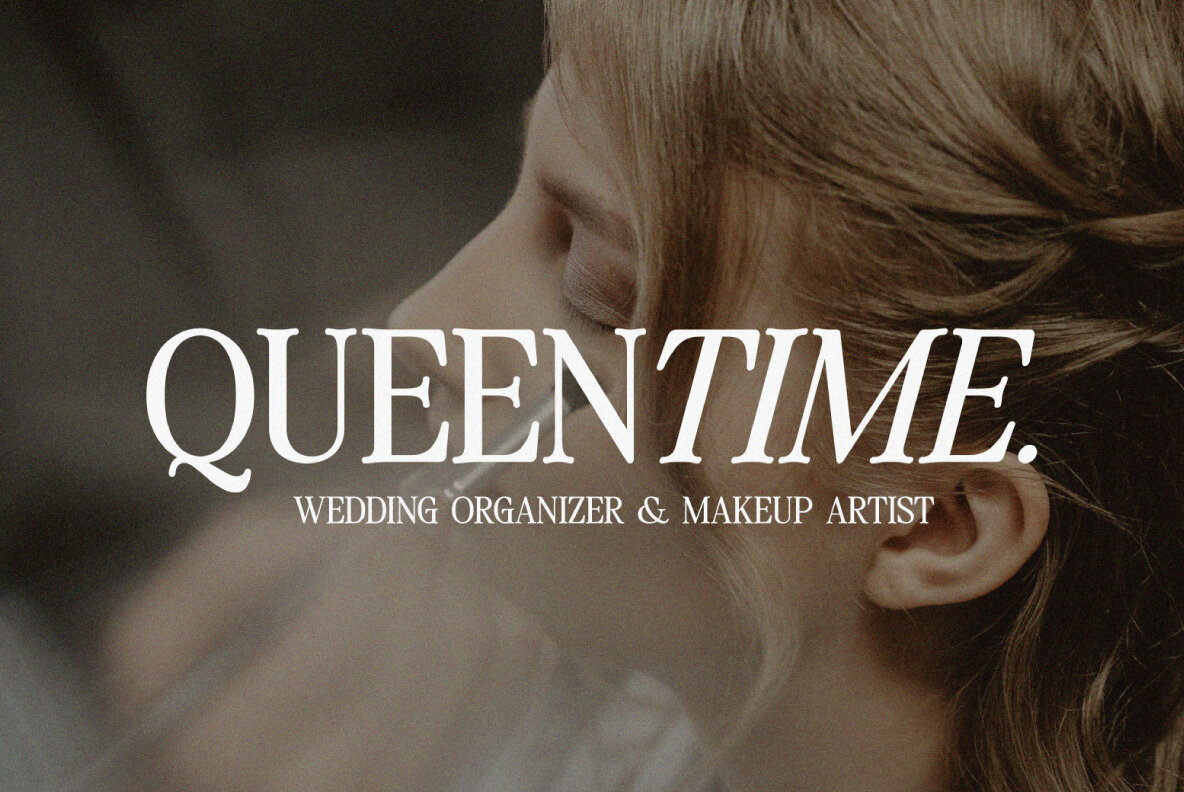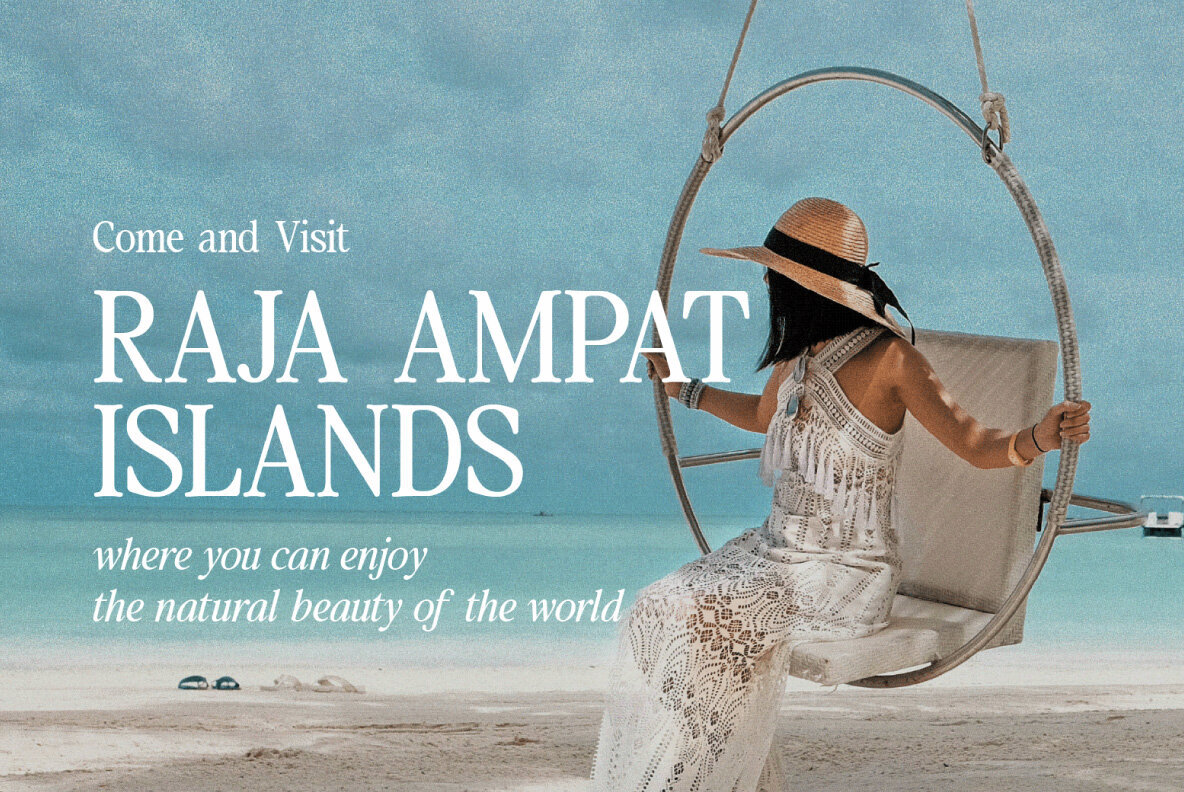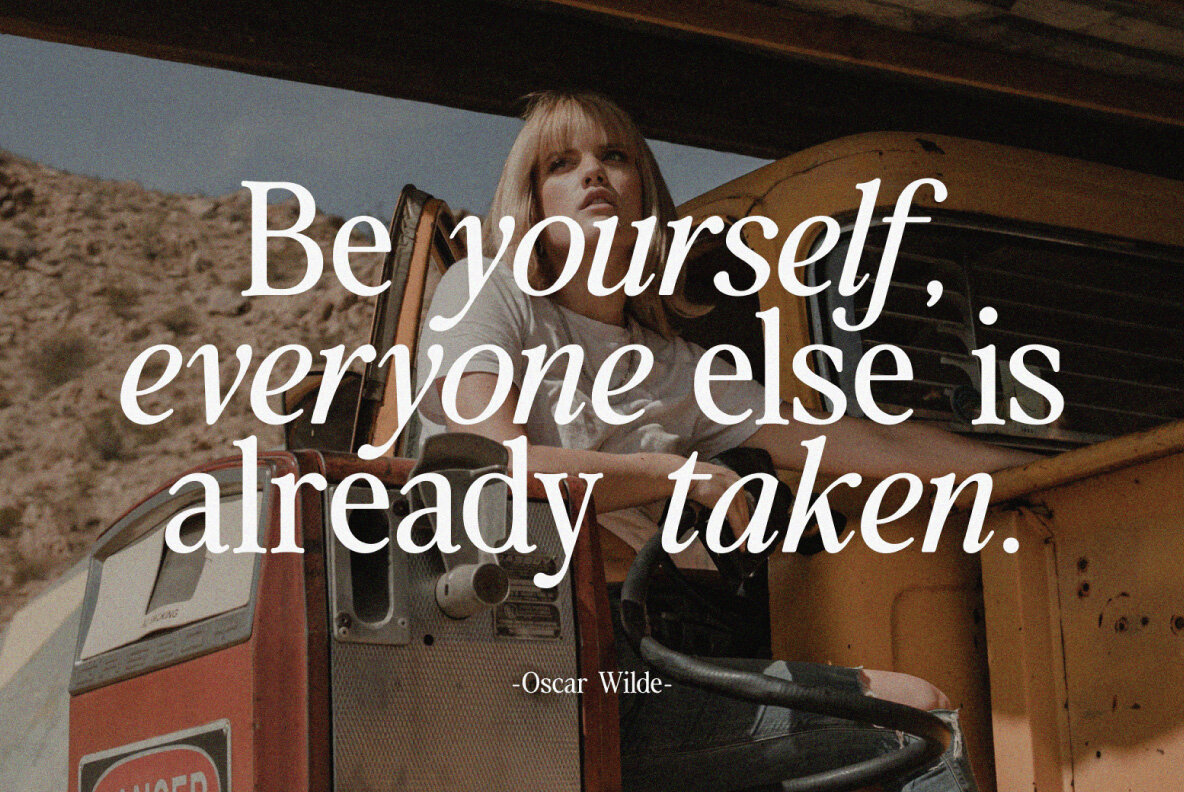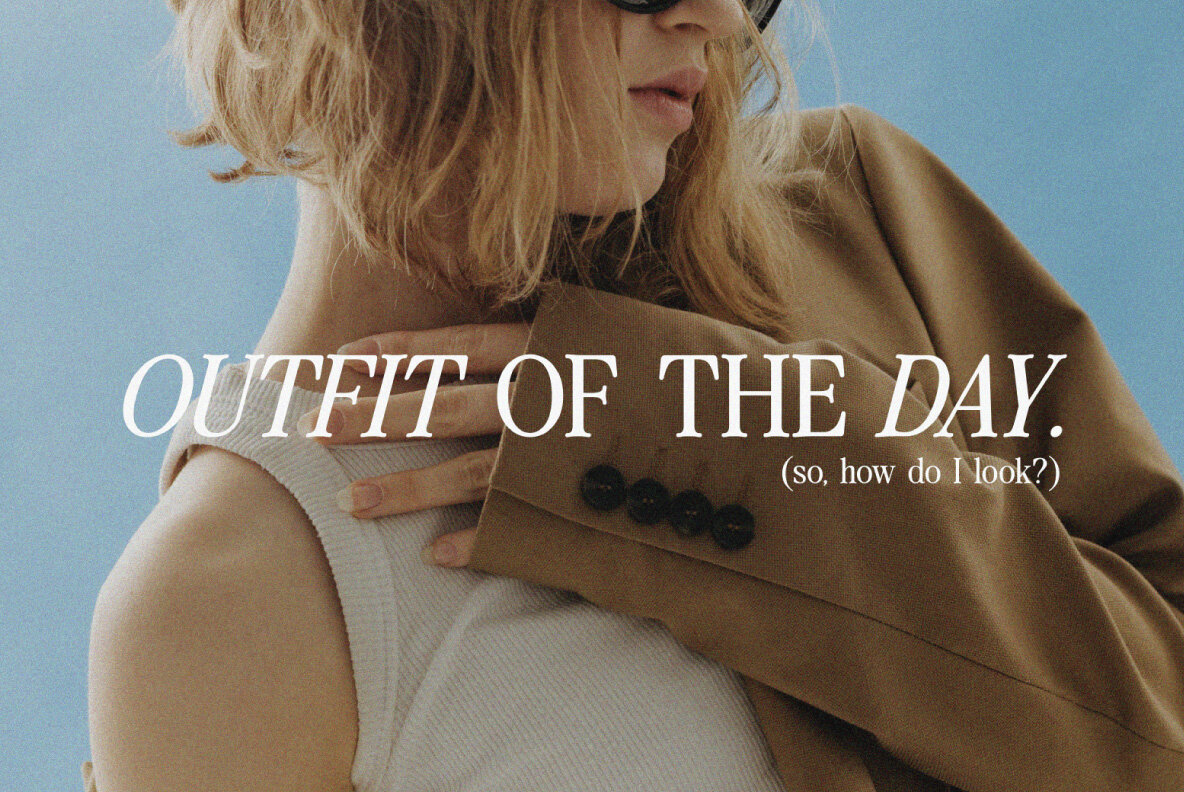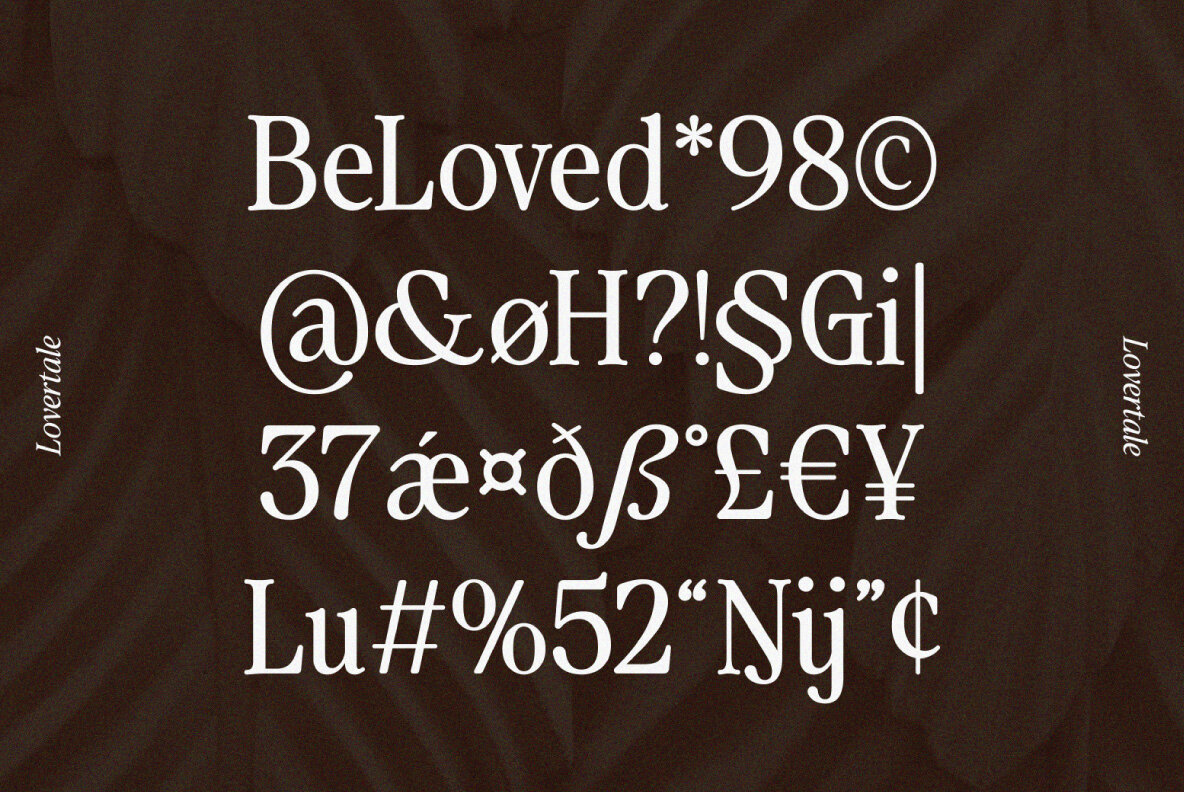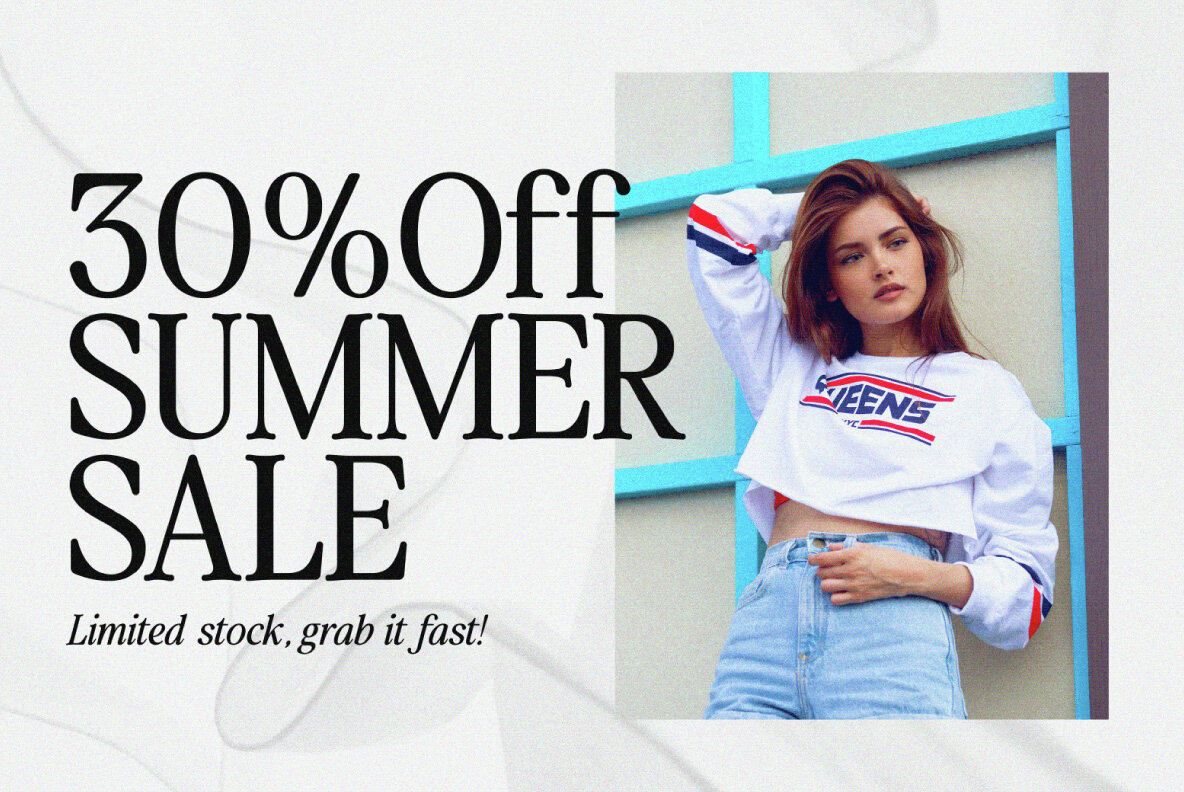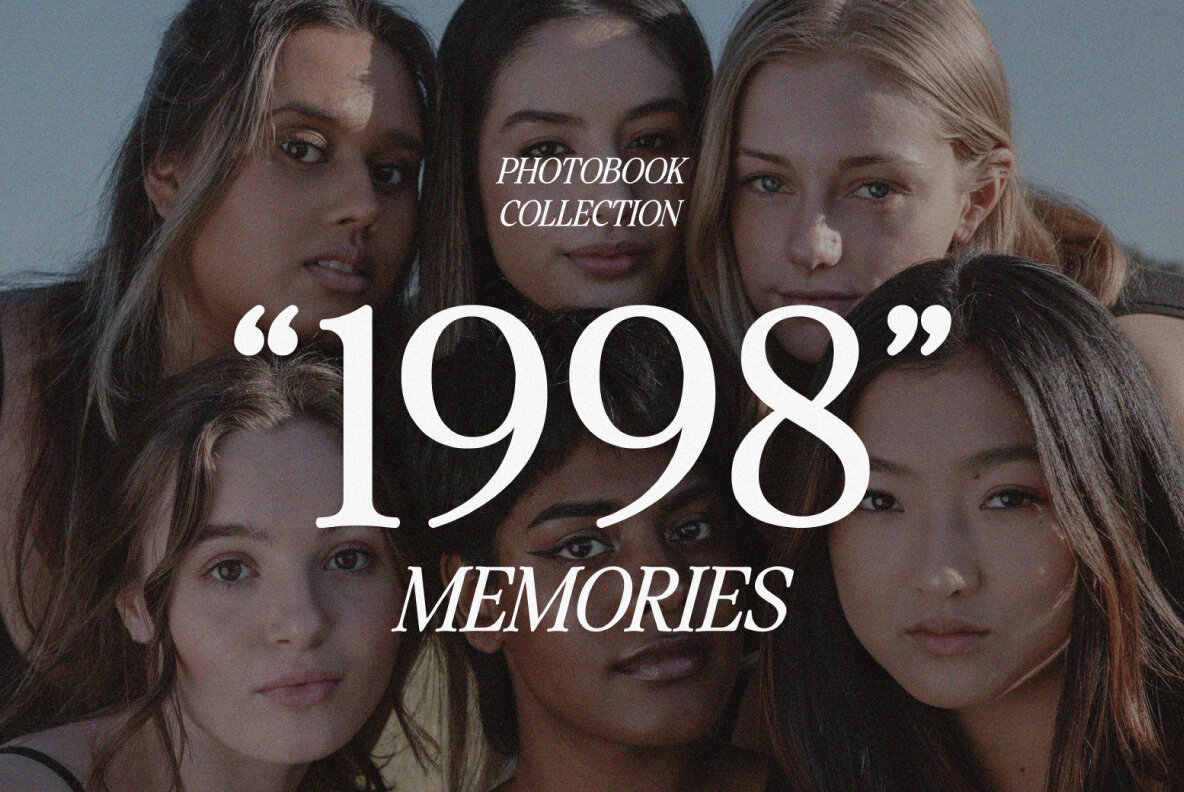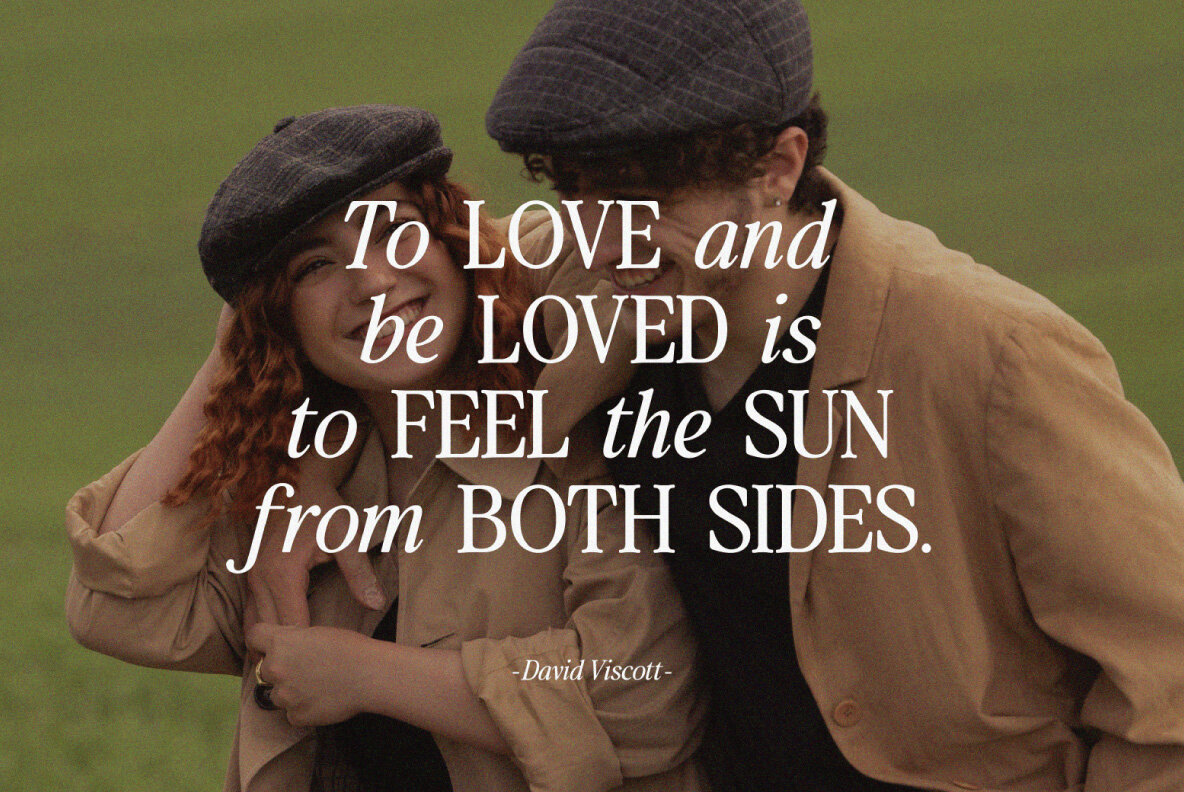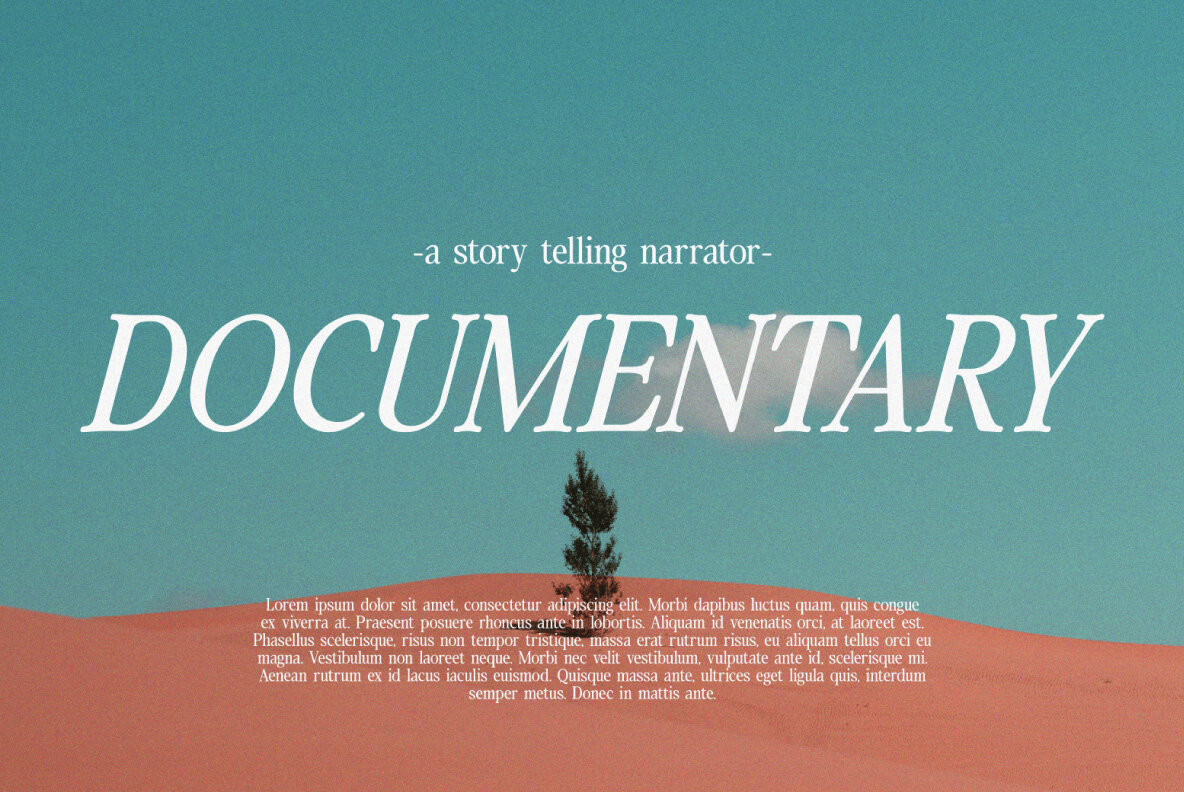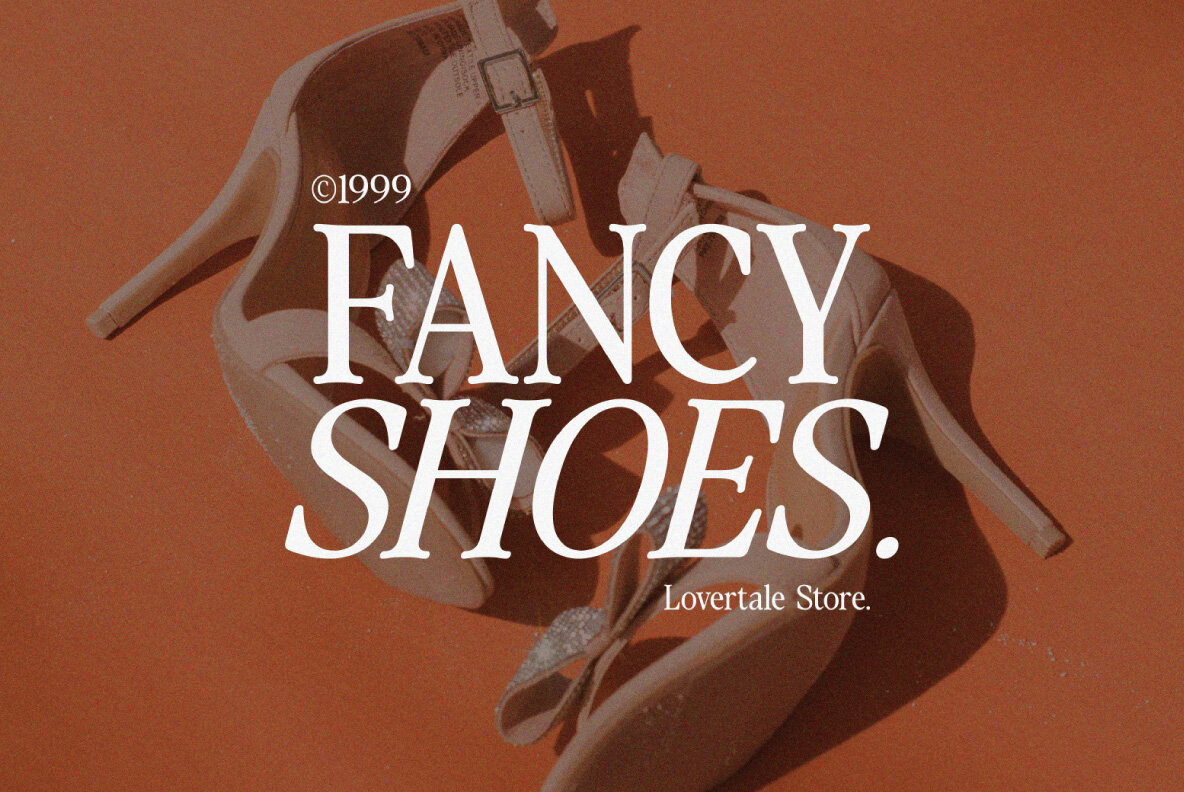
SS Lovertale Font
Lovertale is a sophisticated retro serif font that seamlessly blends classic elegance with a modern edge. Its excellent readability makes it versatile for both display and body text, making it an ideal choice for your design projects. Whether you're working on luxury logos, branding, classy editorials, fashion promotions, or boutique branding, Lovertale fits the bill perfectly. It's also well-suited for art galleries, museum displays, historical architecture contexts, magazine layouts, stationery designs, and modern advertising.
This font includes a range of features that enhance its versatility and appeal. It covers basic Latin A-Z and a-z, numbers, punctuation, and ligatures, along with Opentype features and PUA encoding. Additionally, it supports multiple languages, making it accessible for a global audience. Lovertale is not just a font but a tool for crafting stunning visual narratives across home decor, book covers, card invitations, art quotes, and special events. Its blend of retro charm and modern functionality positions it as a timeless choice for designers.